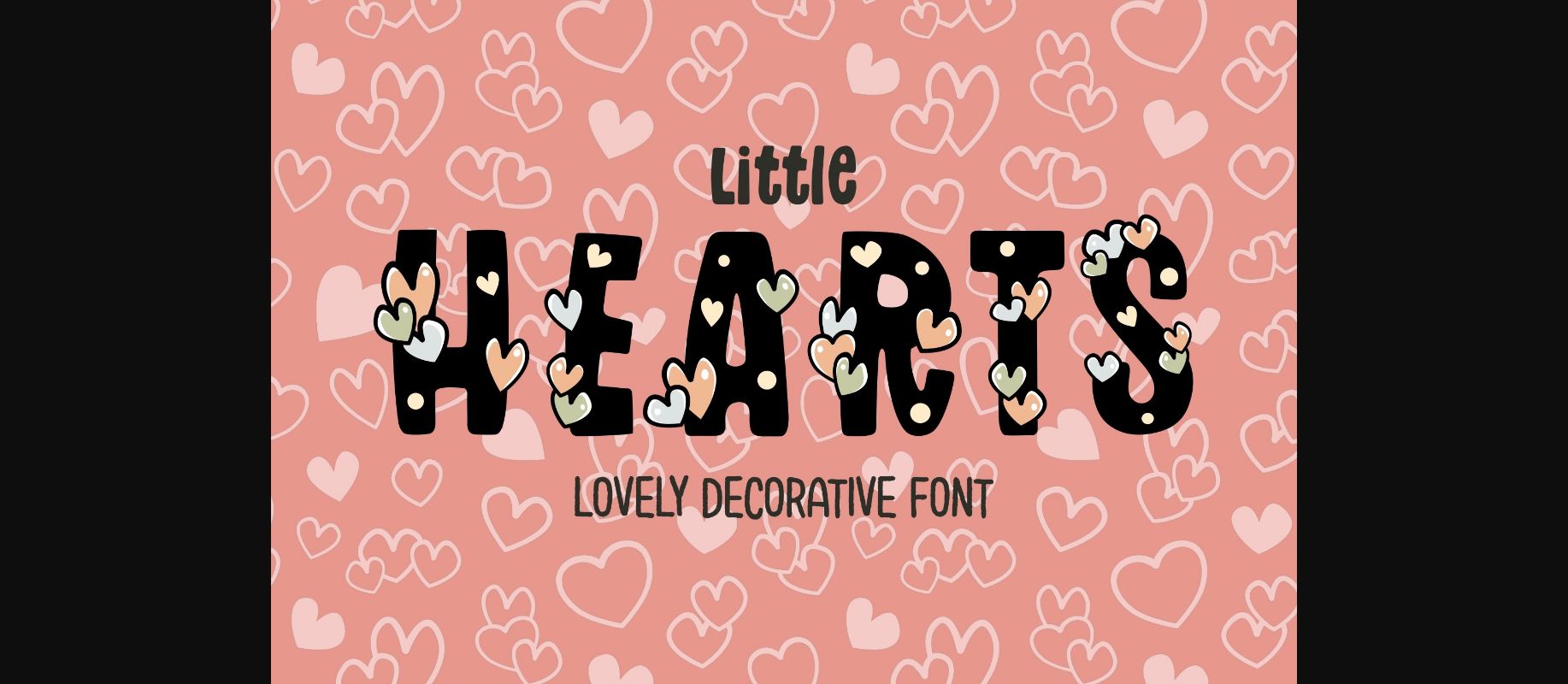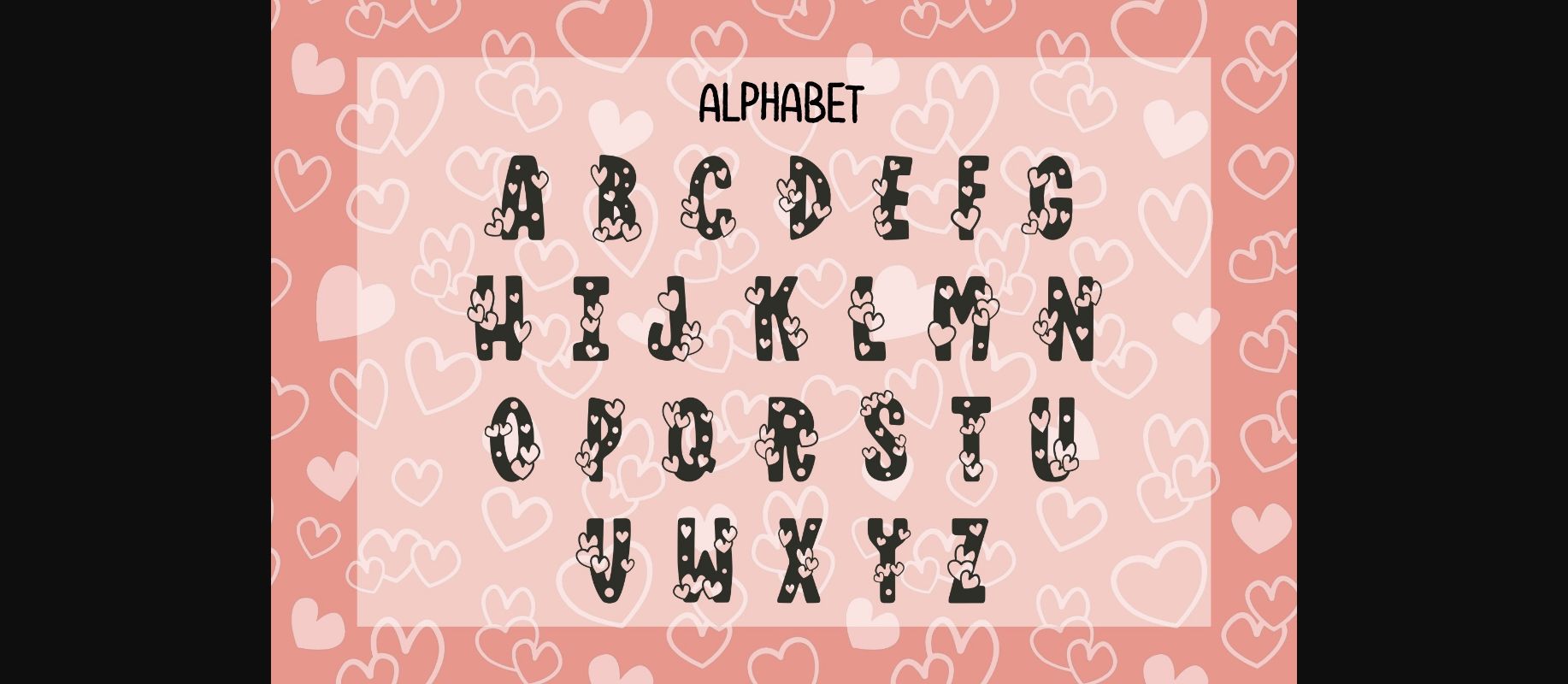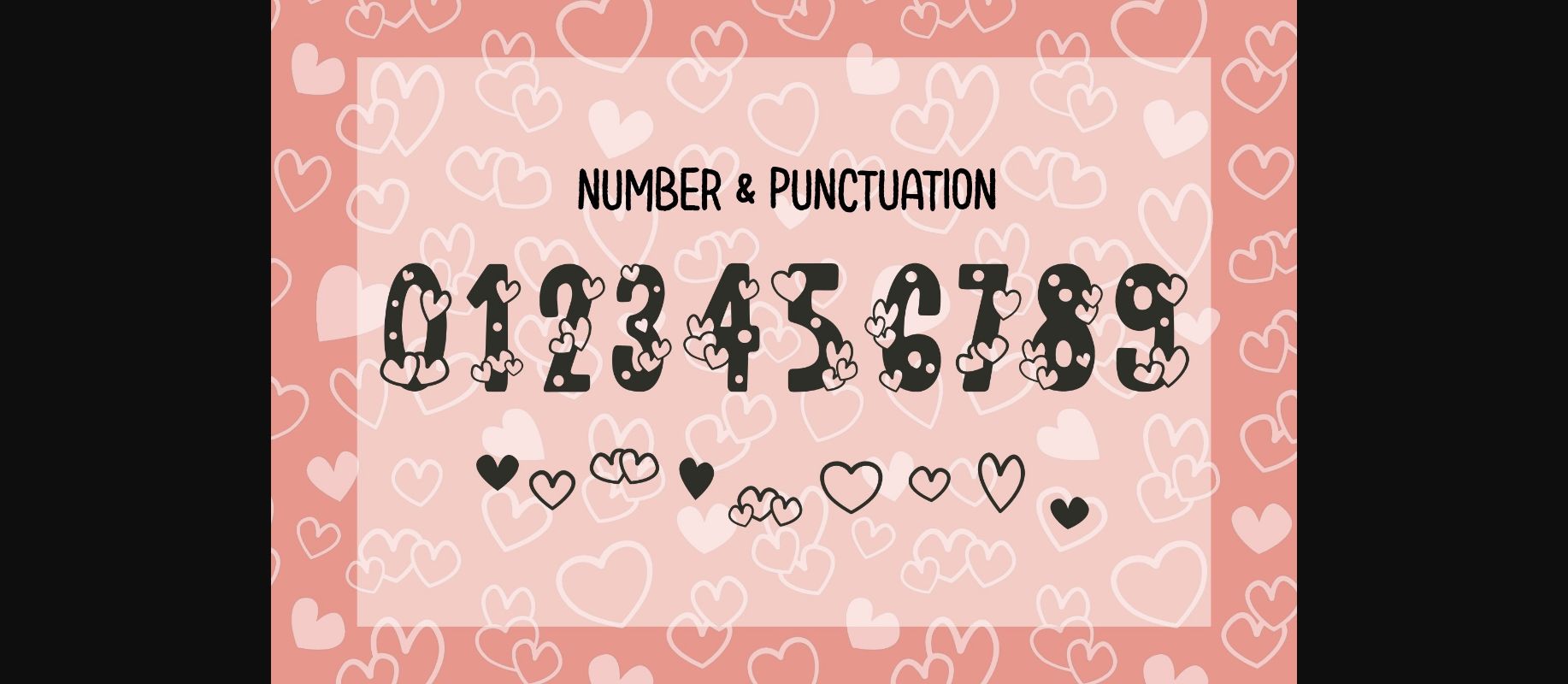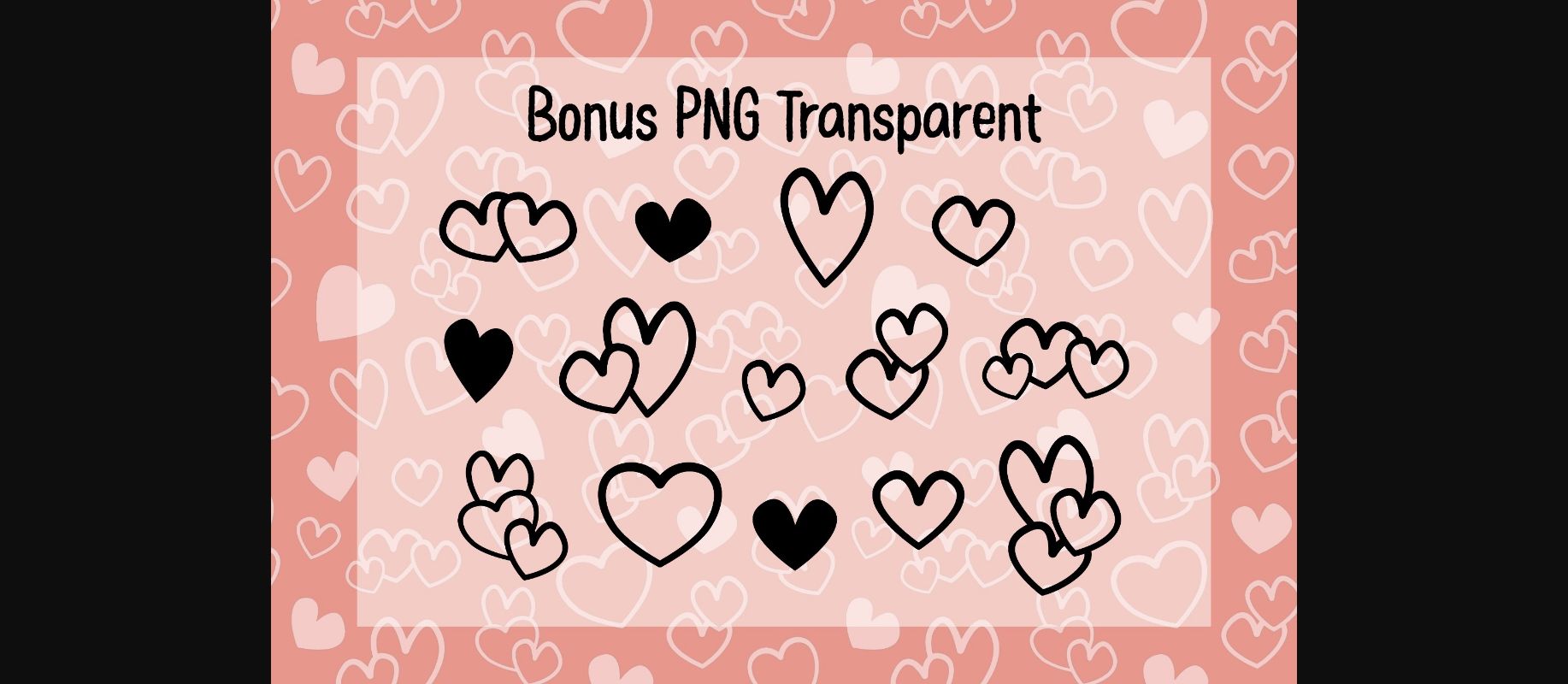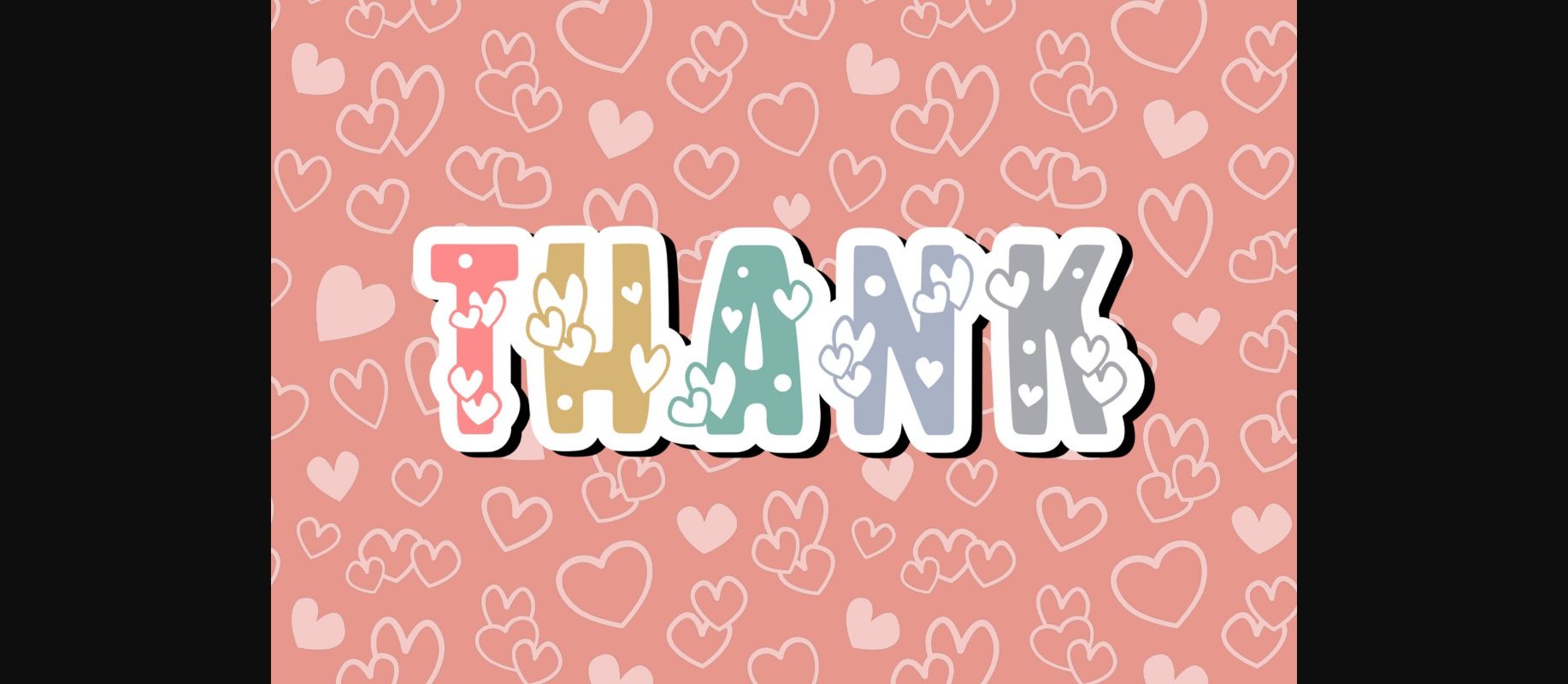
Little Hearts is a chic and lovely decorative font. This font is the perfect fit for all of your logos, branding, social media, crafty DIY projects, and much more!